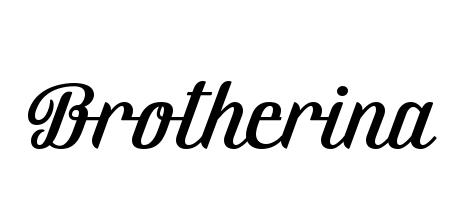
Brotherina
Brotherina: A flowing script font, reminiscent of handwritten notes, whispers secrets and shares warmth. Its gentle curves and elegant sways evoke a sense of intimacy and nostalgic charm. Perfect for crafting personal touches or adding a touch of vintage flair to any design.